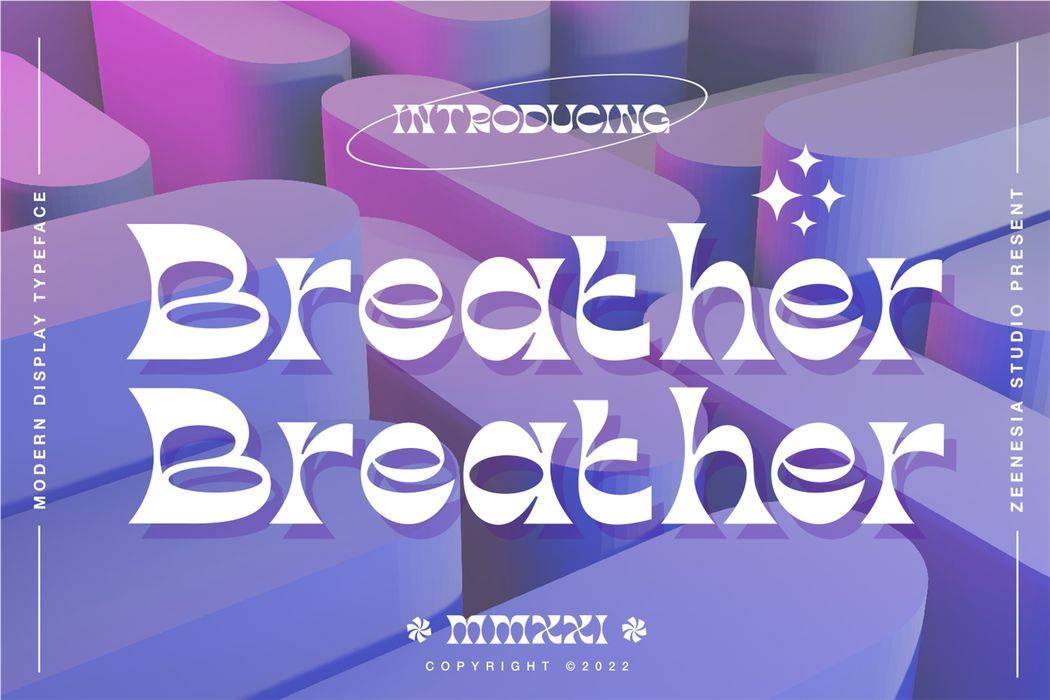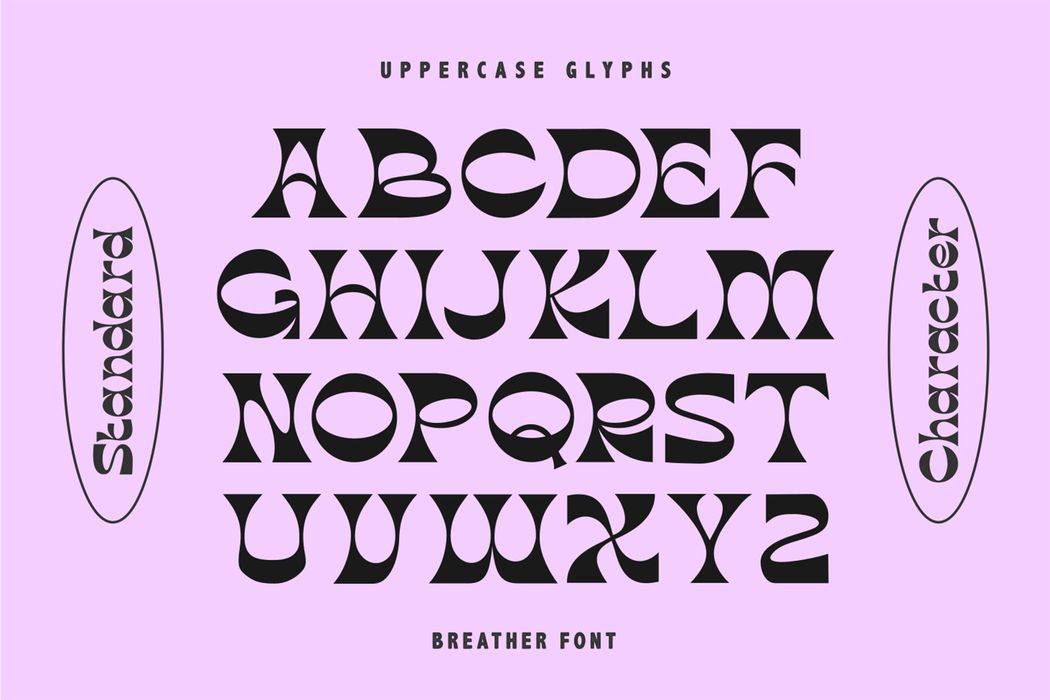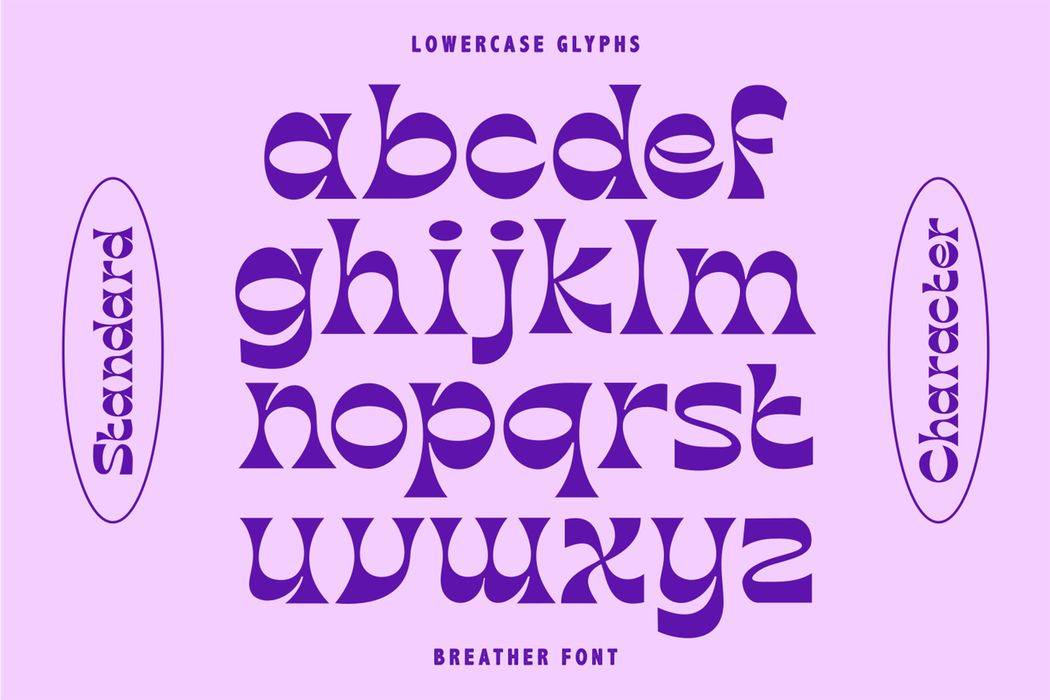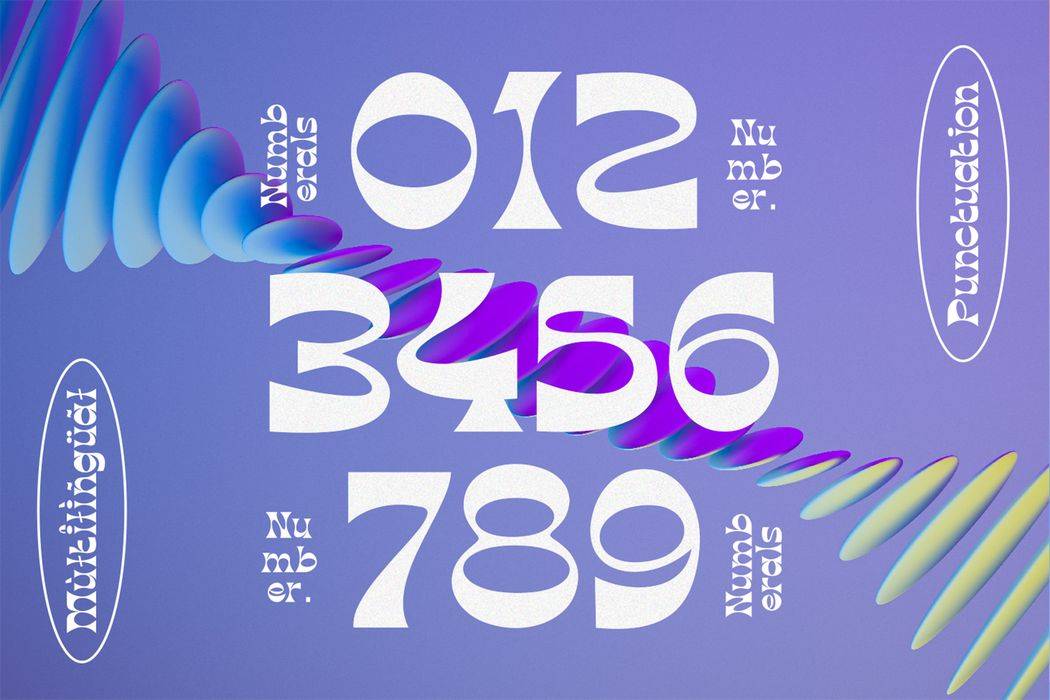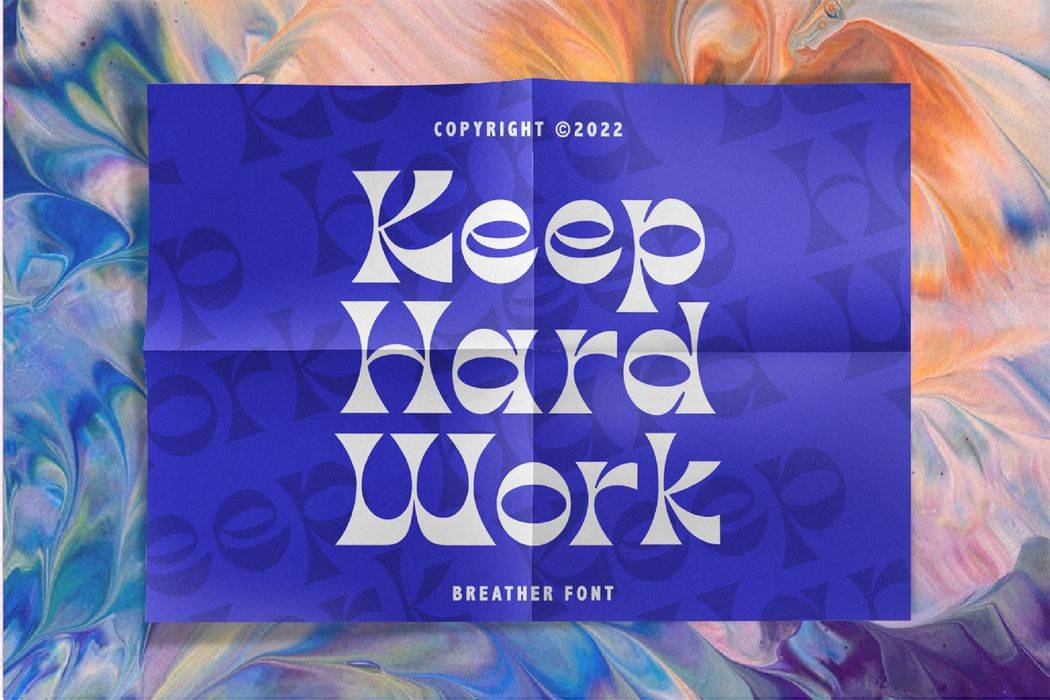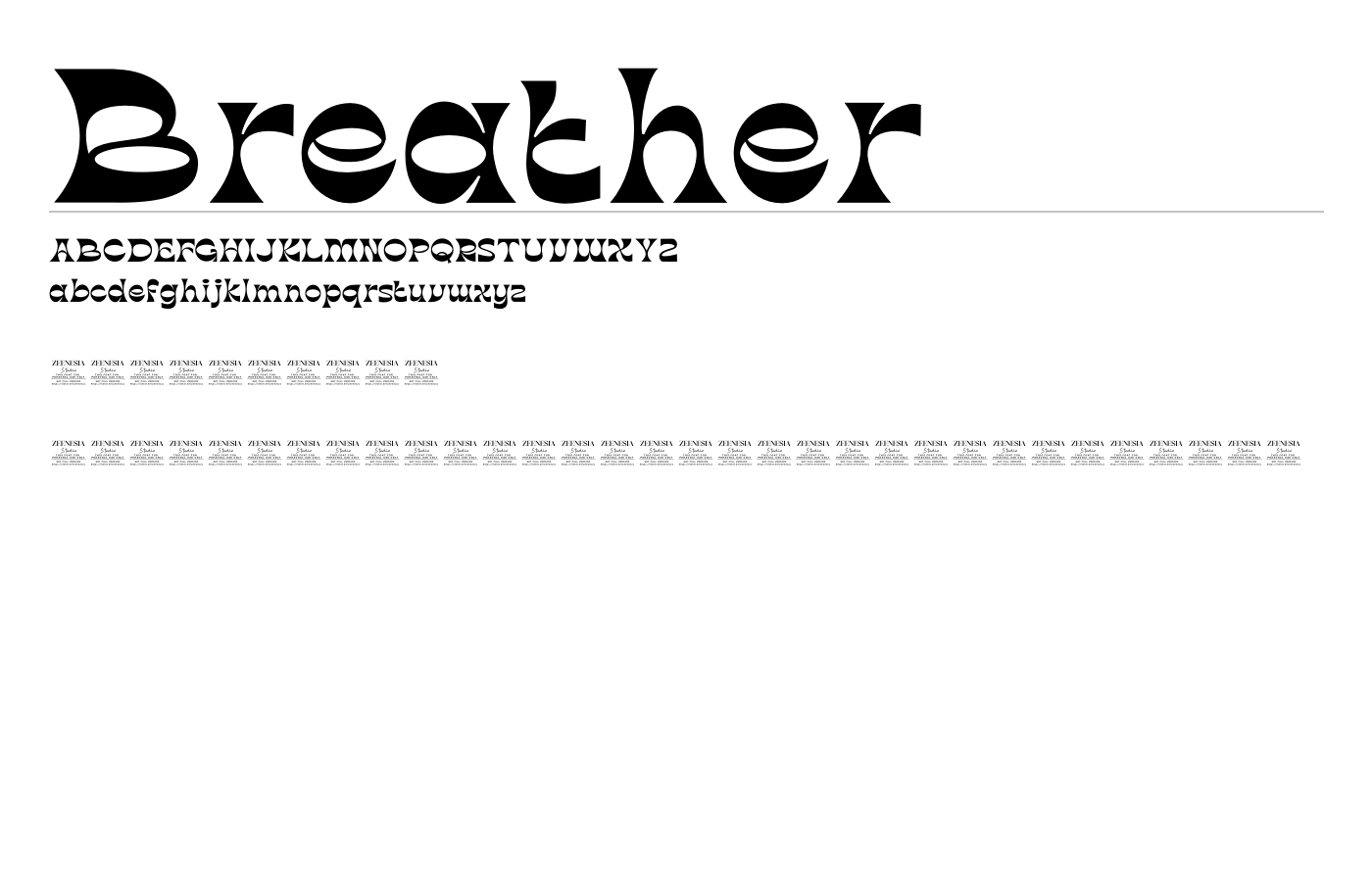
Breather is a bold, serif font with a distinctive, artistic twist, featuring strong contrast between thick and thin strokes and unique, exaggerated shapes that give it a retro yet modern vibe. Its wide letterforms and playful curves make it ideal for eye-catching headlines, logos, and branding projects where a creative and memorable impression is desired. This font works especially well for fashion, editorial, and posters that aim to combine elegance with a touch of bold personality.
Breather Font
About Breather Font